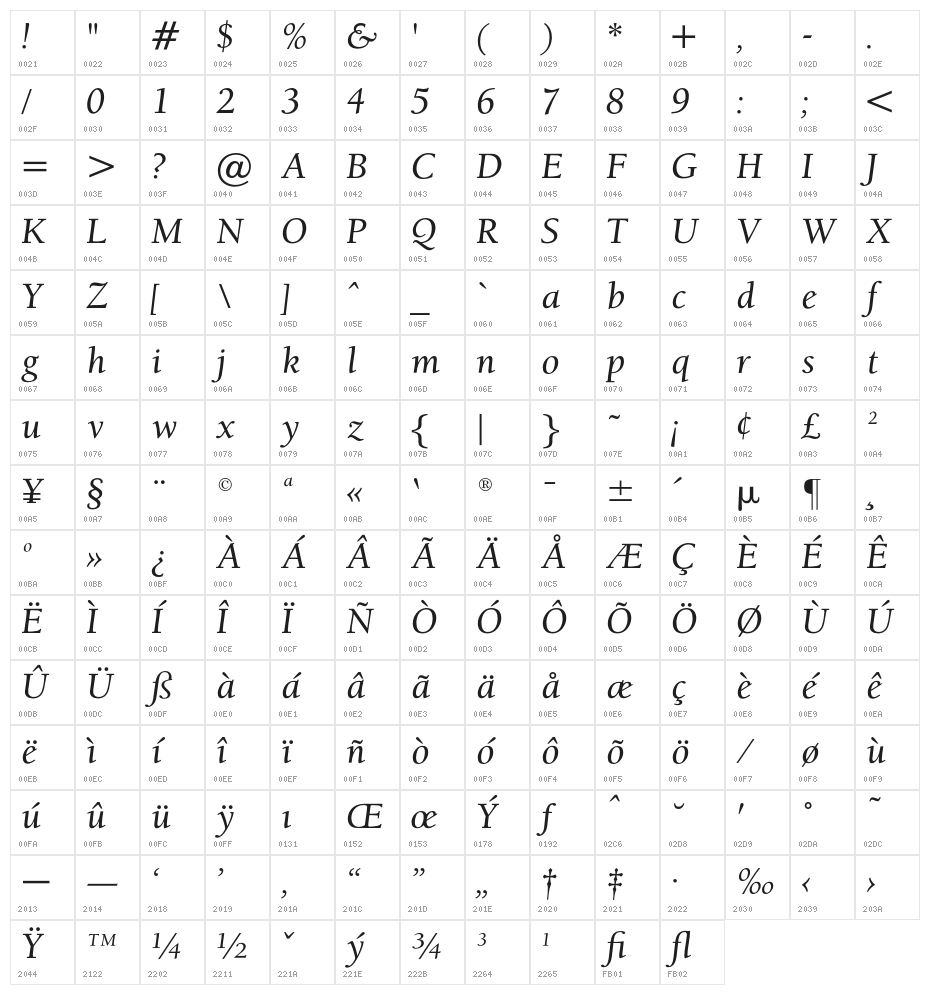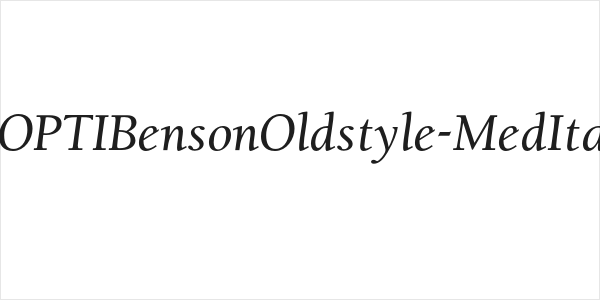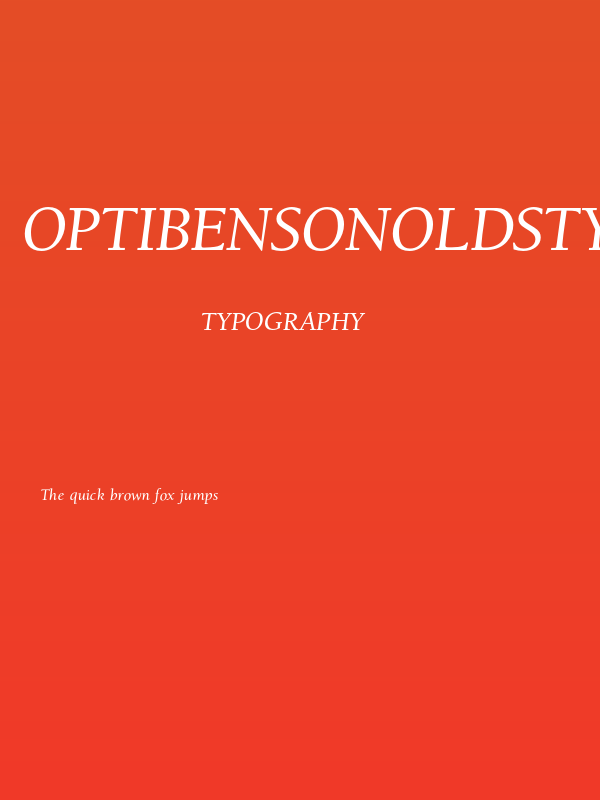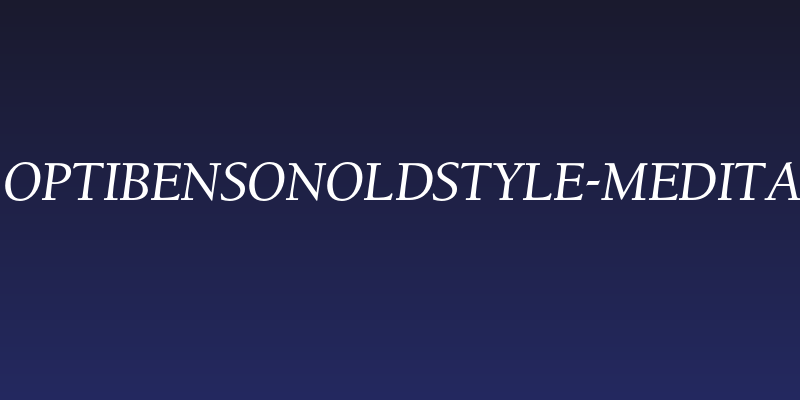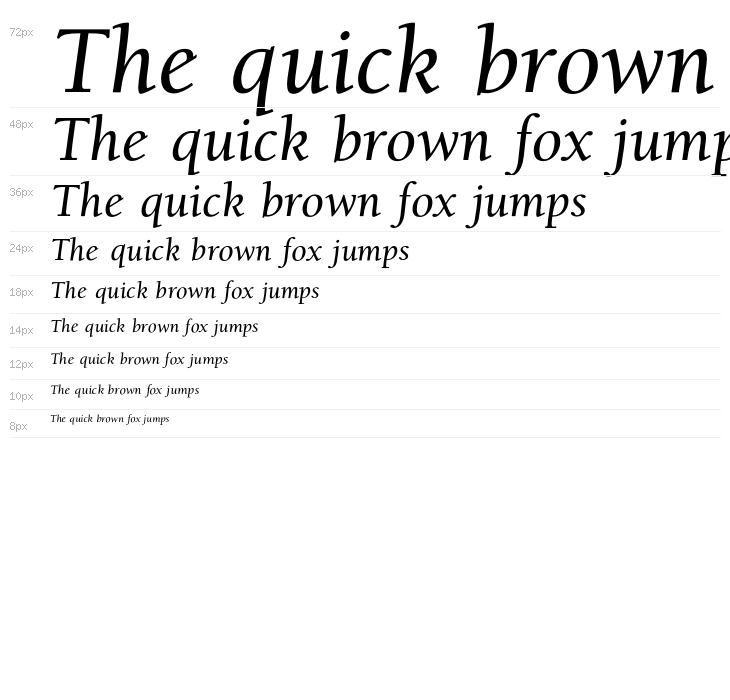
OPTIBensonOldstyle-MedIta Font
OPTIBensonOldstyle-MedIta Description
This font exudes a classic elegance with its refined and sophisticated design. The characters are crafted with a slight italic slant, giving it a graceful and fluid appearance. The serifs are pronounced yet delicate, adding a touch of traditional charm. The overall structure of the letters is well-balanced, with moderate contrast between thick and thin strokes, enhancing readability while maintaining an artistic flair. The numerals and special characters are consistent with the font's style, ensuring a cohesive look across all text elements.
| Proposed Projects | Ideal for use in editorial design, book covers, formal invitations, and branding projects that require a touch of sophistication. |